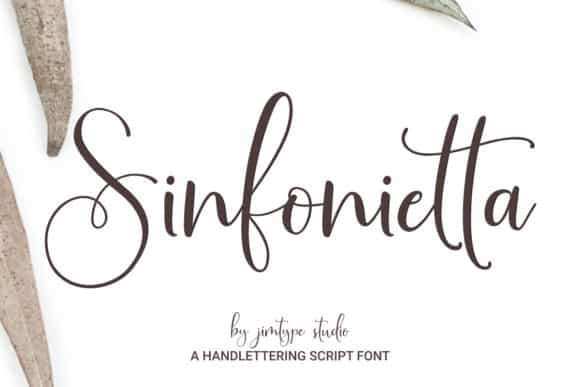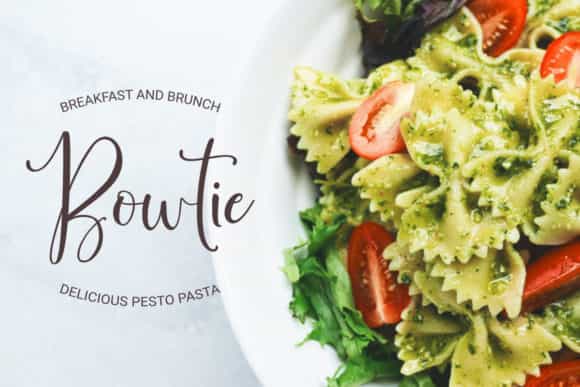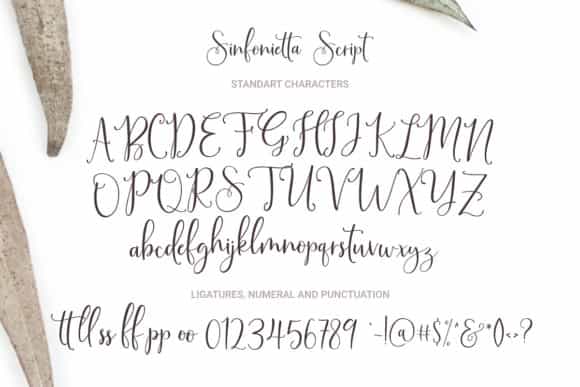
Sinfonietta– A new typeface for an elegant modern handwritten script features swashes! This one is especially made for those who need an elegant feeling on their projects which end up excellent and great!